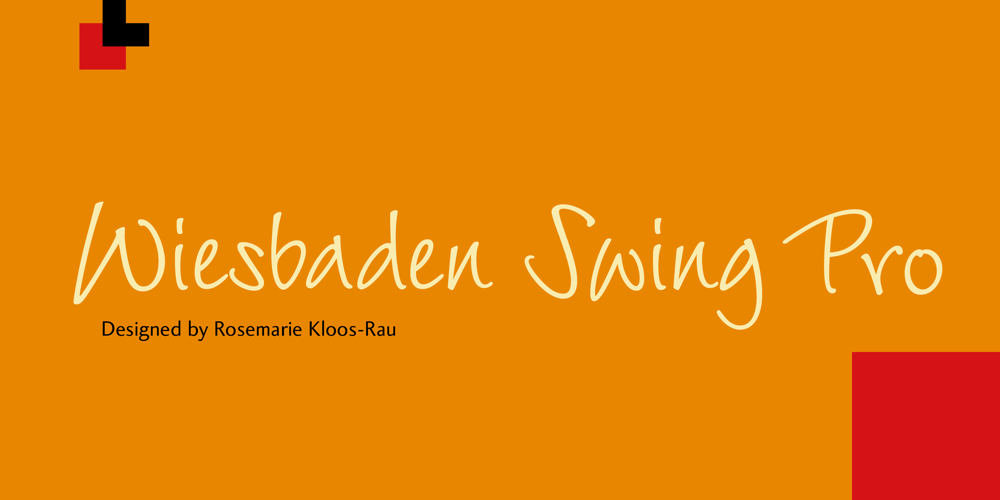
Wiesbaden Swing Font Family was designed by Rosemarie Kloos-Rau and published by Linotype. Wiesbaden Swing contains 4 styles and family package options. German designer Rosemarie Kloos-Rau created Wiesbaden Swing in 1992 for Linotype. This light, informal typeface is based on her own handwriting, and the strokes have a feeling of spontaneity and energetic flair. Characters like the D, O, W, g, n and y really do swing with unbridled confidence and joy. Kloos-Rau says about her typeface: “From the experience with my design company I recognized the need for fonts with personality. Wiesbaden Swing is my contemporary contribution to the field of calligraphy, a headline font which offers a fresh and unconventional approach to typography.” This family has both regular and bold weights, and a set of Dingbats. The Dingbats are light-hearted and zippy symbols for holidays, children’s products, menus, and more. Wiesbaden Swing will add zest to packaging, catalogs, menus, websites, greeting cards, and magazine layouts.